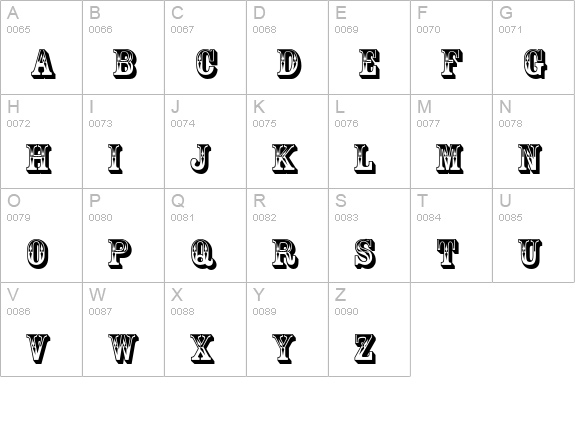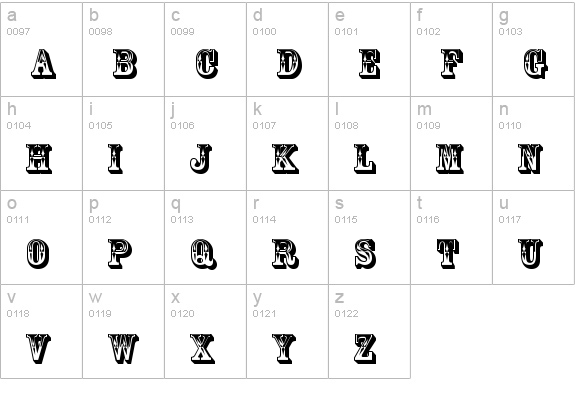
Rosewood Std is a beautifully crafted font that exudes elegance and sophistication. Its intricate details and graceful curves make it a perfect choice for adding a touch of luxury to your designs. Whether you are working on a wedding invitation, a branding project, or any other creative endeavor, Rosewood Std is sure to make a lasting impression. The best part? Rosewood Std is completely free to download at FontsMarket.com. This means you can easily access this stunning font and incorporate it into your projects without any additional cost. Don't miss out on the opportunity to enhance your designs with the timeless beauty of Rosewood Std. Download it today and let your creativity shine!